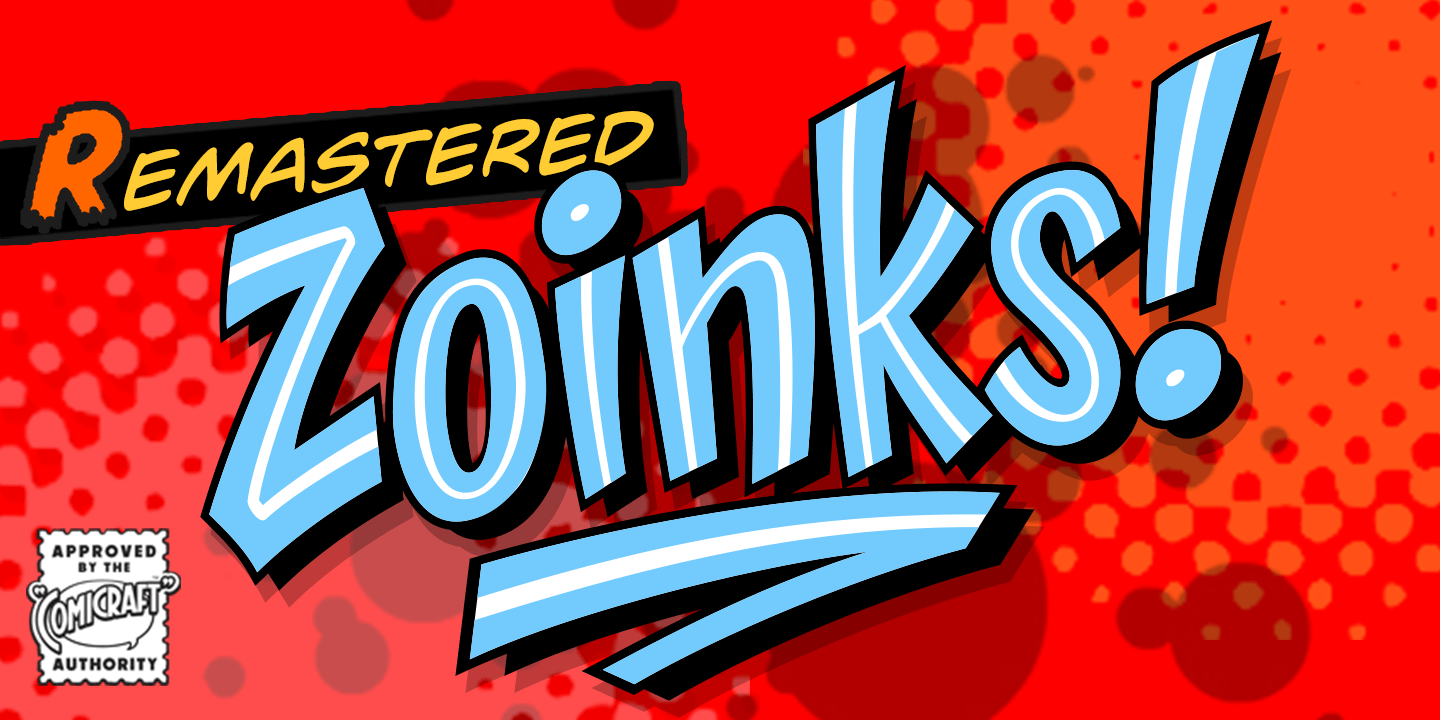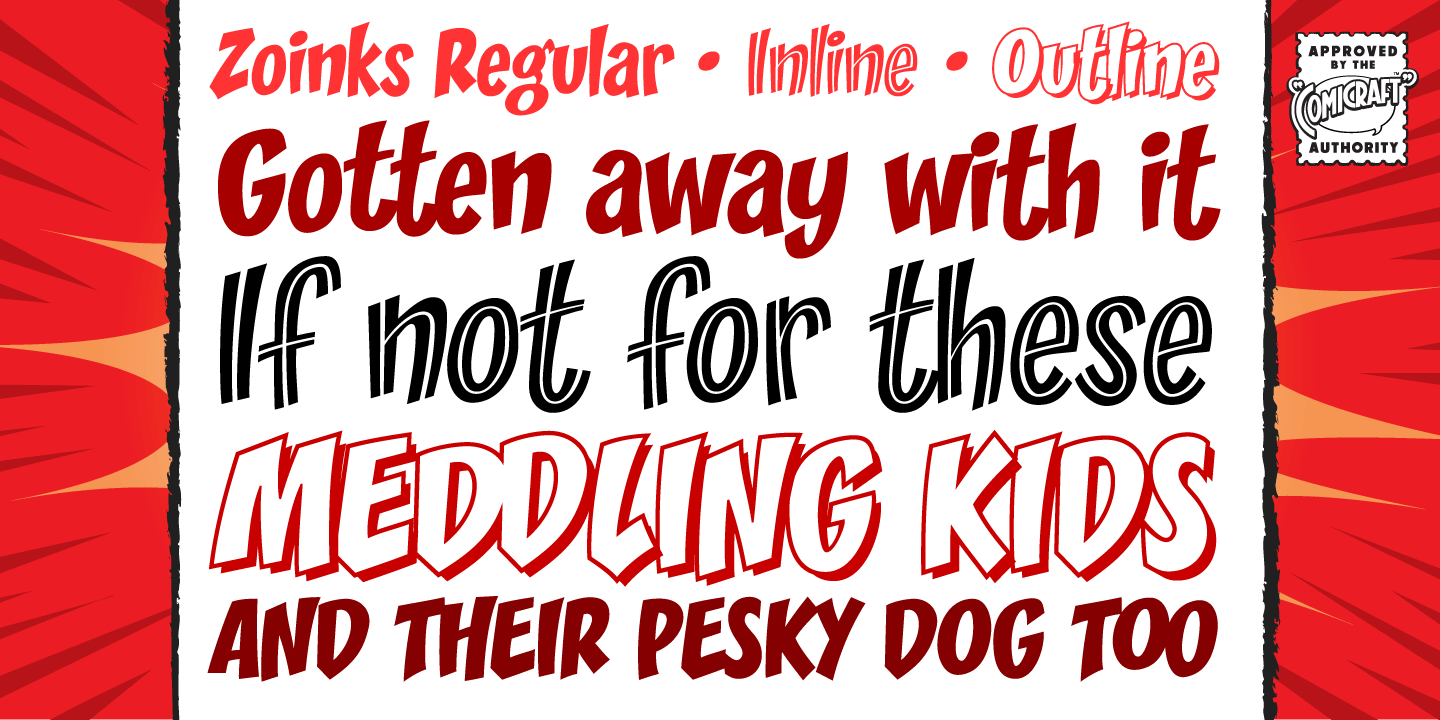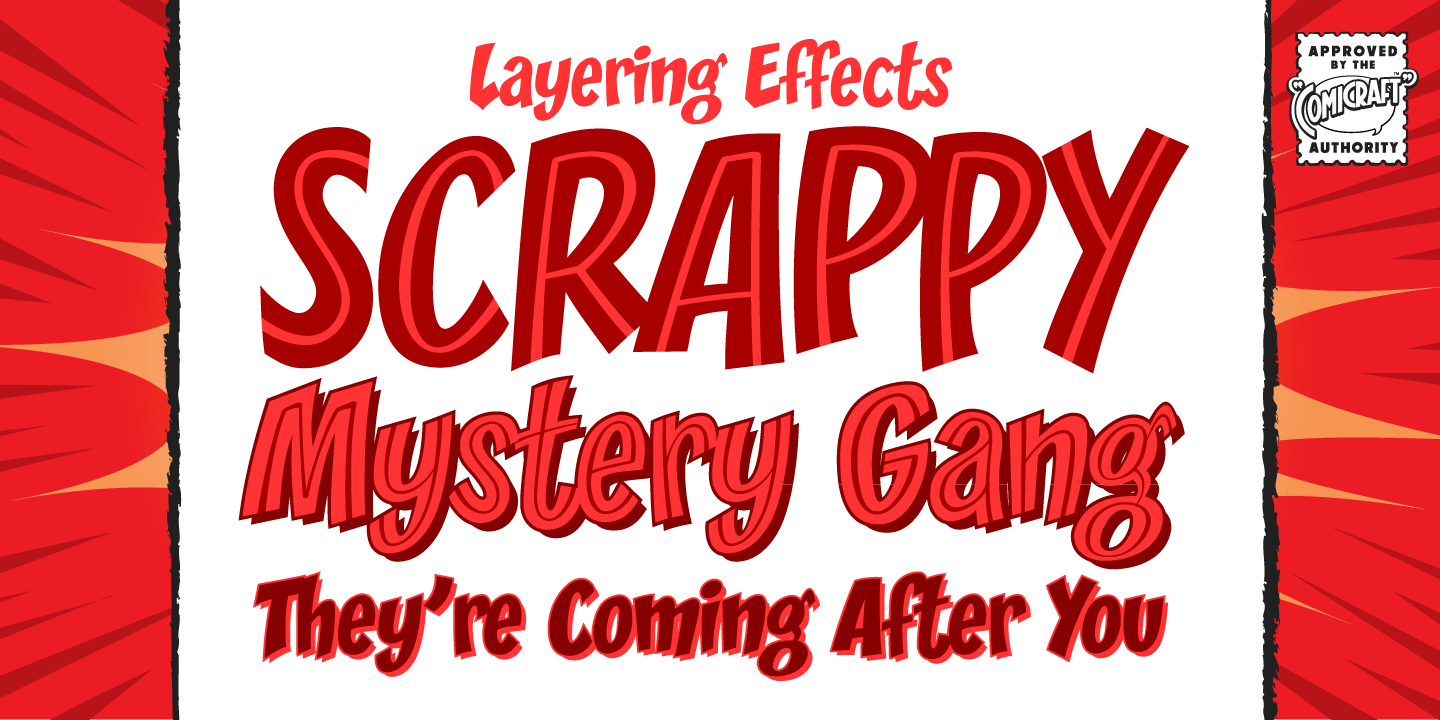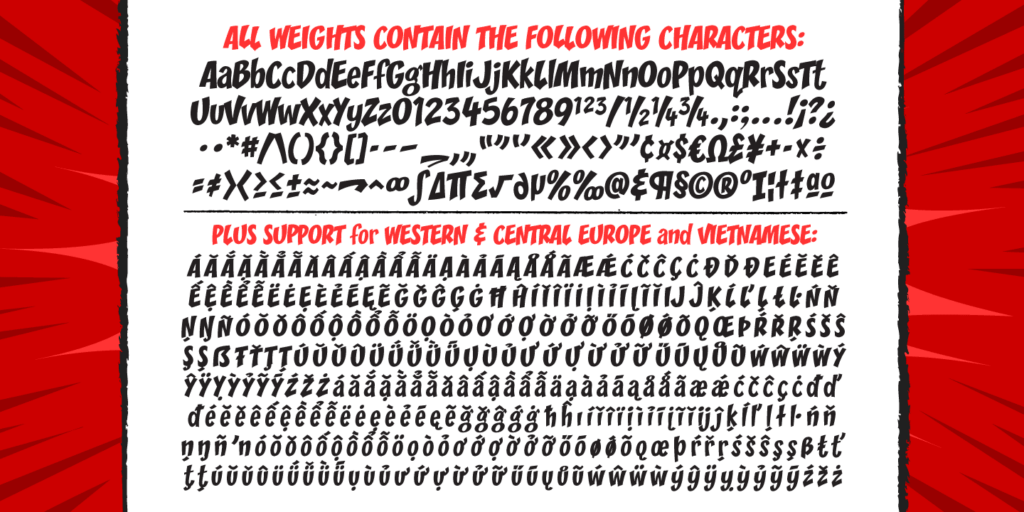
Zoinks
About Zoinks
A Slap Happy font for Wrong Doers you just haveta smack in the face, our ever-popular ZOINKS has pushed its way onto movie posters, toy packages, candy bars, and cereal boxes.